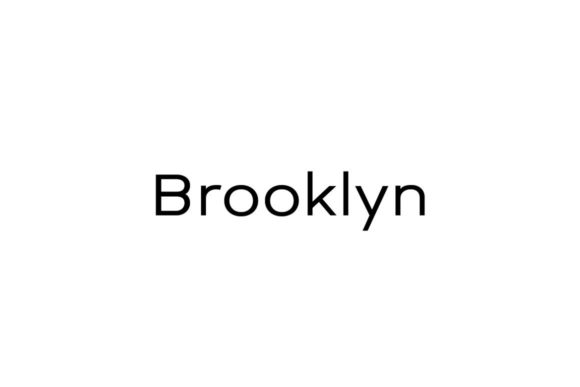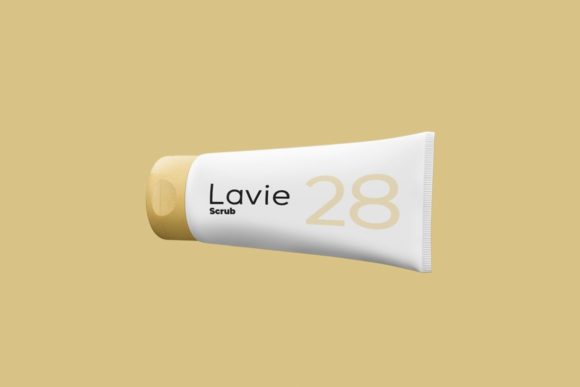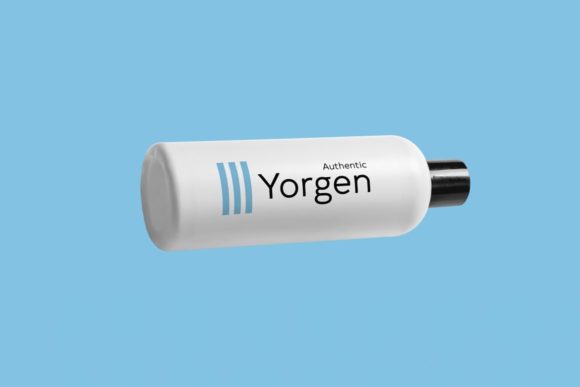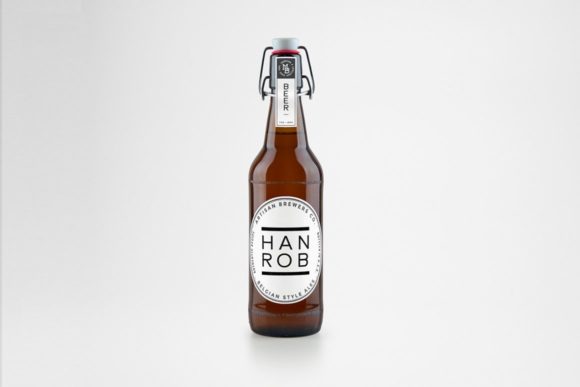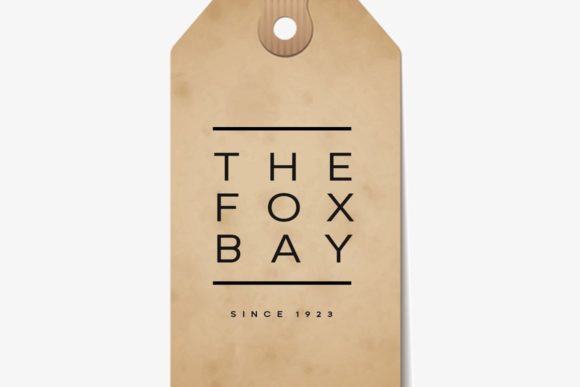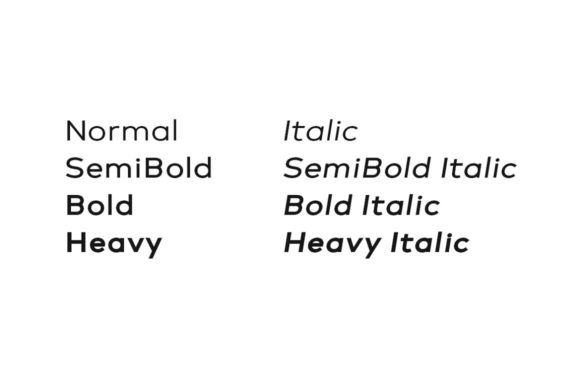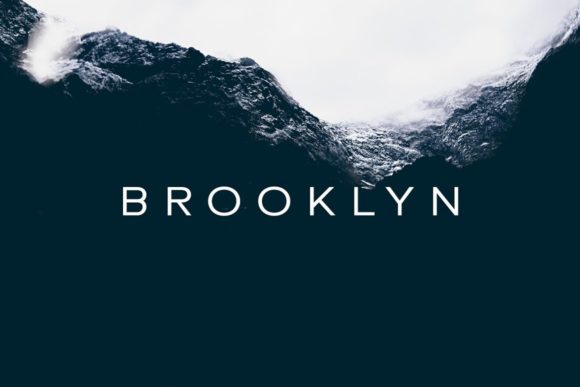
Introducing Brooklyn Font: The Ultimate Sans Serif for Creative Projects
Are you tired of using the same old fonts for your design projects? Look no further than Brooklyn Font, a minimal and neat sans serif font that’s perfect for adding a touch of modernity to your creative ideas. With its clean lines and simple aesthetic, Brooklyn Font is an incredibly versatile typeface that can easily be matched to a wide range of projects.
What Makes Brooklyn Font So Special?
Brooklyn Font is a sans serif font, which means it doesn’t have the small lines or flourishes that are characteristic of serif fonts. This makes it a great choice for projects where you want a clean and modern look. The font is also highly legible, making it perfect for use in body text, headings, and titles.
Key Features of Brooklyn Font
- Minimal and Neat Design: Brooklyn Font has a simple and understated design that’s perfect for creating a professional and modern look.
- Highly Legible: The font is designed to be easy to read, making it perfect for use in body text, headings, and titles.
- Versatile: Brooklyn Font can be used for a wide range of projects, from branding and advertising to web design and crafting.
- Easily Customizable: The font is highly customizable, allowing you to adjust the size, color, and style to suit your needs.
How to Use Brooklyn Font in Your Projects
Brooklyn Font is an incredibly versatile typeface that can be used in a wide range of projects. Here are just a few ideas to get you started:
Branding and Advertising
Brooklyn Font is perfect for creating a modern and professional brand identity. Use it for logos, business cards, and marketing materials to create a cohesive and stylish look.
Web Design
Brooklyn Font is a great choice for web design projects, particularly for headings and titles. Its clean lines and simple aesthetic make it easy to read on a variety of devices.
Crafting and DIY Projects
Brooklyn Font is also perfect for crafting and DIY projects, such as making signs, labels, and other materials. Its highly legible design makes it easy to read, even at small sizes.
Why Choose Brooklyn Font?
There are many fonts to choose from, but Brooklyn Font stands out for its unique combination of style and versatility. Here are just a few reasons why you should consider using Brooklyn Font in your next project:
- Unique and Modern Design: Brooklyn Font has a fresh and modern aesthetic that’s sure to make your projects stand out.
- Highly Legible: The font is designed to be easy to read, making it perfect for use in a variety of contexts.
- Customizable: Brooklyn Font is highly customizable, allowing you to adjust the size, color, and style to suit your needs.
Brooklyn Font is a minimal and neat sans serif font that’s perfect for adding a touch of modernity to your creative projects. With its clean lines, simple aesthetic, and highly legible design, it’s an incredibly versatile typeface that can easily be matched to a wide range of projects. Whether you’re a designer, crafter, or simply someone who loves to create, Brooklyn Font is a great choice for anyone looking to add a professional and stylish touch to their work.